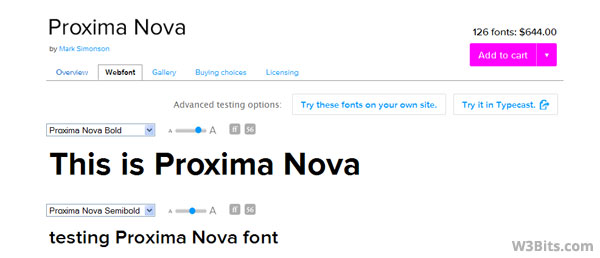
Google Fonts As Proxima Nova Alternatives.
The proxima nova family is a complete reworking of proxima sans 1994. Making the web more beautiful, fast, and open through great typography The font has amazing readability and rendering on and off the web.
Proxima Nova Is A Premium Typeface Created By Mark Simonson In 2005.
Proxima Nova And Its Alternative Google Font Montserrat Proxima Nova Is A Premium Typeface Created By Mark Simonson In 2005.
4 google fonts similar to proxima nova. Fonts muli font family by free font july 28, 2017. I fell in love with this typeface called proxima nova the same day when i saw it on a website using it as web font.
Proxima Nova Is The Creation Of Independent Font Designer Mark Simonson.
Proxima Nova, Proxima Nova Condensed, And Proxima Nova Even More Condensed.